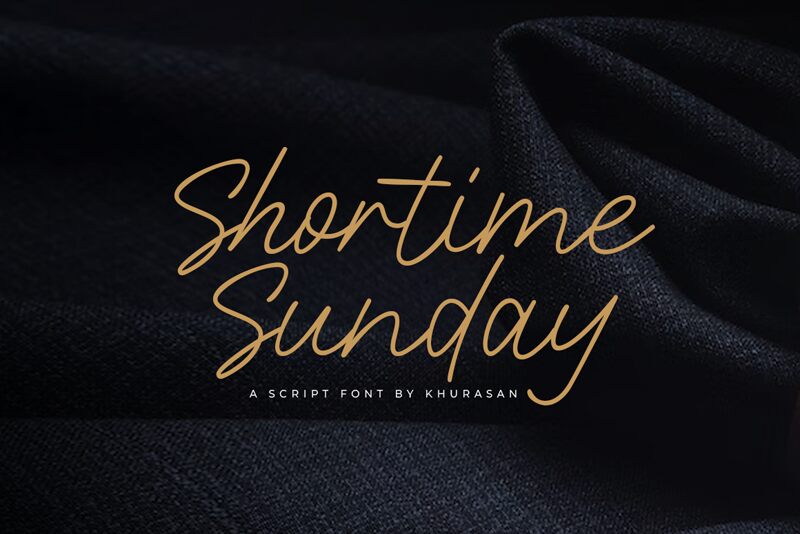
Shortime Sunday
Shortime Sunday, a whimsical and delightful casual handwritten font by Khurasan, adds a playful touch to any project. With its extra-light weight, this font exudes effortless charm and elegance.
Its graceful curves and organic strokes make it perfect for greeting cards, invitations, and wedding stationery. Additionally, Shortime Sunday brings a touch of creativity to children's books, branding materials, and social media graphics.
Embrace the carefree spirit of Shortime Sunday and let your designs come alive with its unique personality.